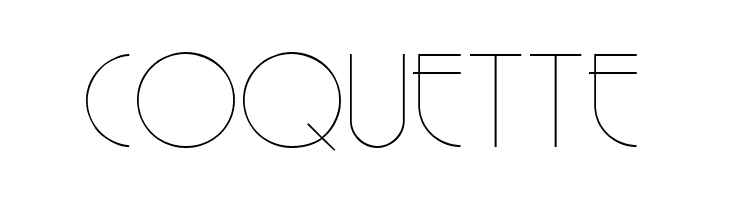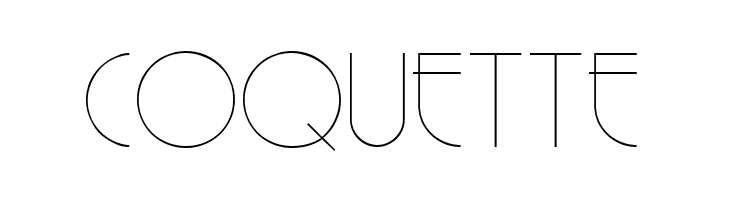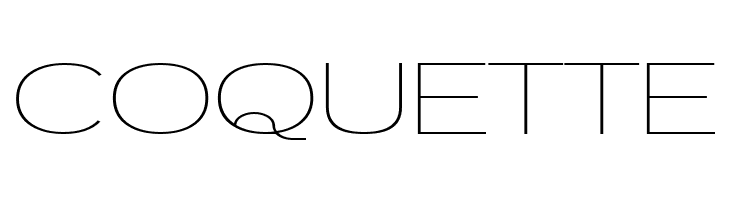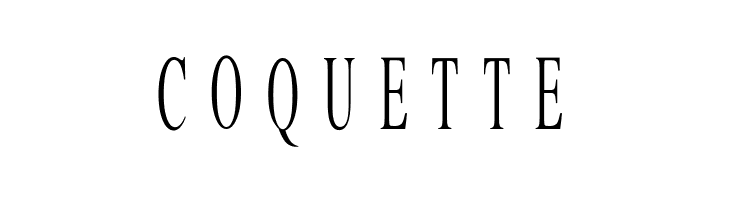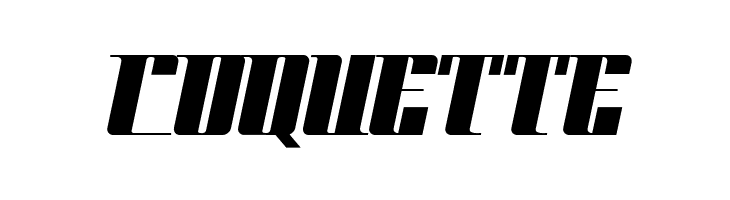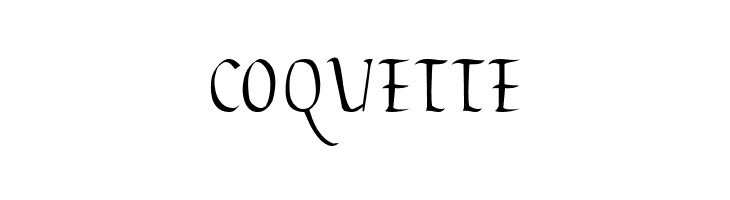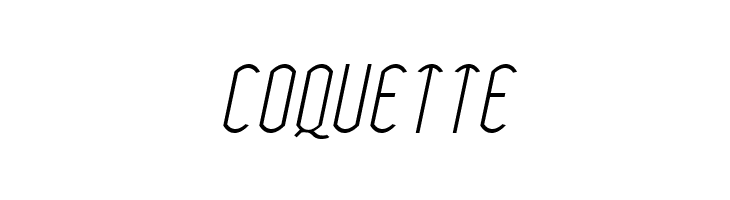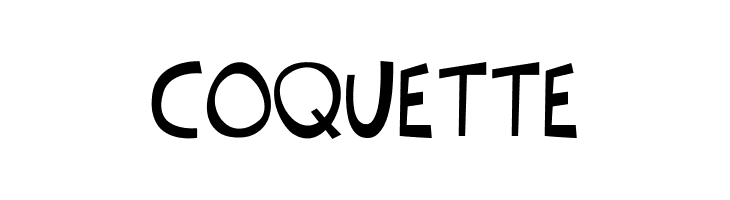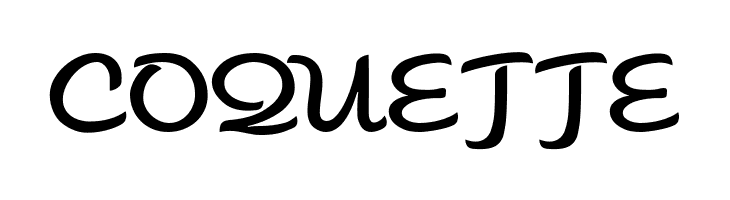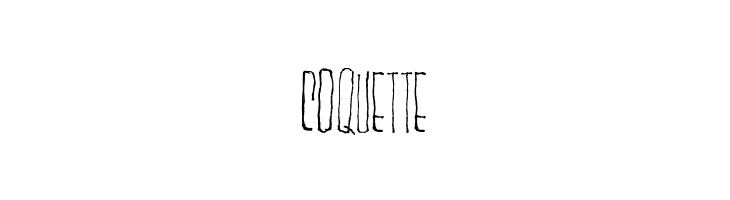
A modern, minimalist font with thin, elongated characters.
A classic, condensed serif font with elegant, elongated characters.
A futuristic, angular font with bold, elongated characters and a dynamic slant.
A modern, oblique font with elongated, narrow characters and a dynamic style.
A playful, bold script font with a lively, handwritten style.
A hand-drawn, artistic font with elongated, irregular letterforms and a textured appearance.
A modern, italic font with sleek, elongated characters and a dynamic style.
A vintage serif font with elegant, elongated letterforms and subtle serifs.
A bold, artistic font with a modern vintage aesthetic and sharp serifs.
A bold, angular font with a dynamic and geometric style.
A sleek, futuristic font with geometric, elongated letterforms.
A modern, sleek font with elongated, narrow characters and a sophisticated style.
A modern, condensed font with sleek, elongated characters.
A classic serif font with sharp serifs and elegant, elongated forms.
A dynamic and playful font with stretched, elongated characters.
A bold, dynamic font with elongated letterforms and medium contrast, ideal for impactful headlines.
A decorative and elongated font with a futuristic and bold style.